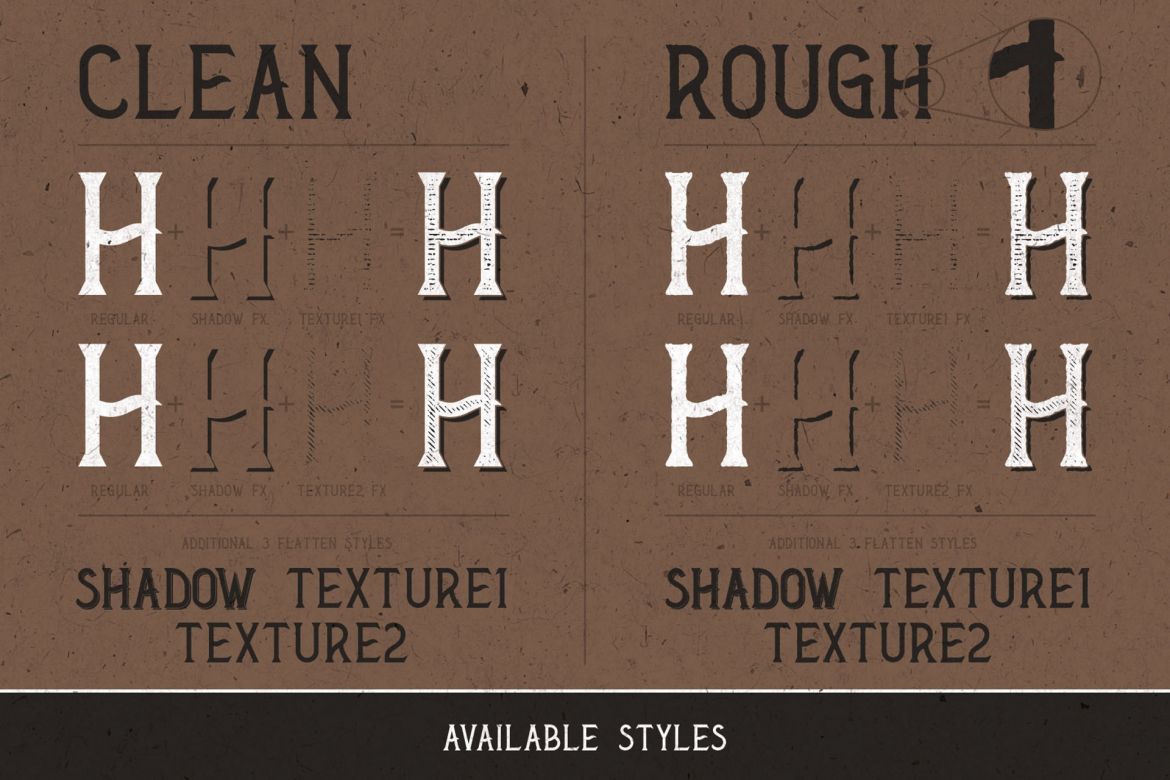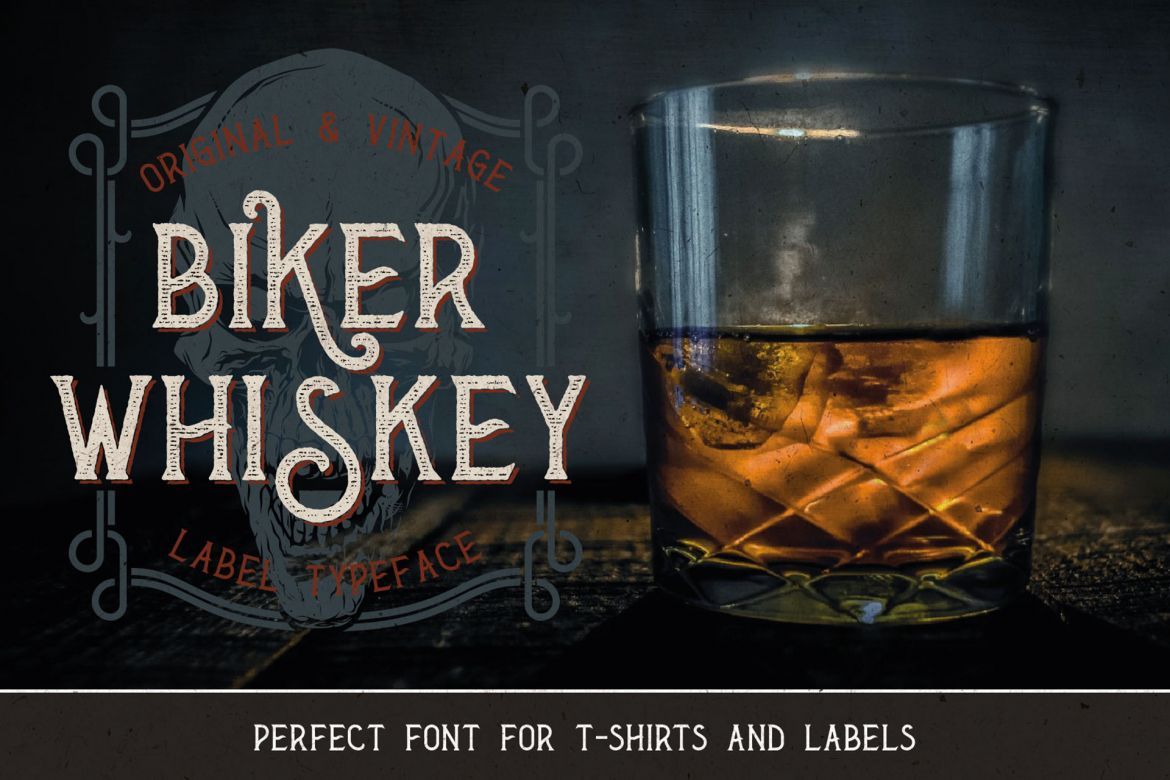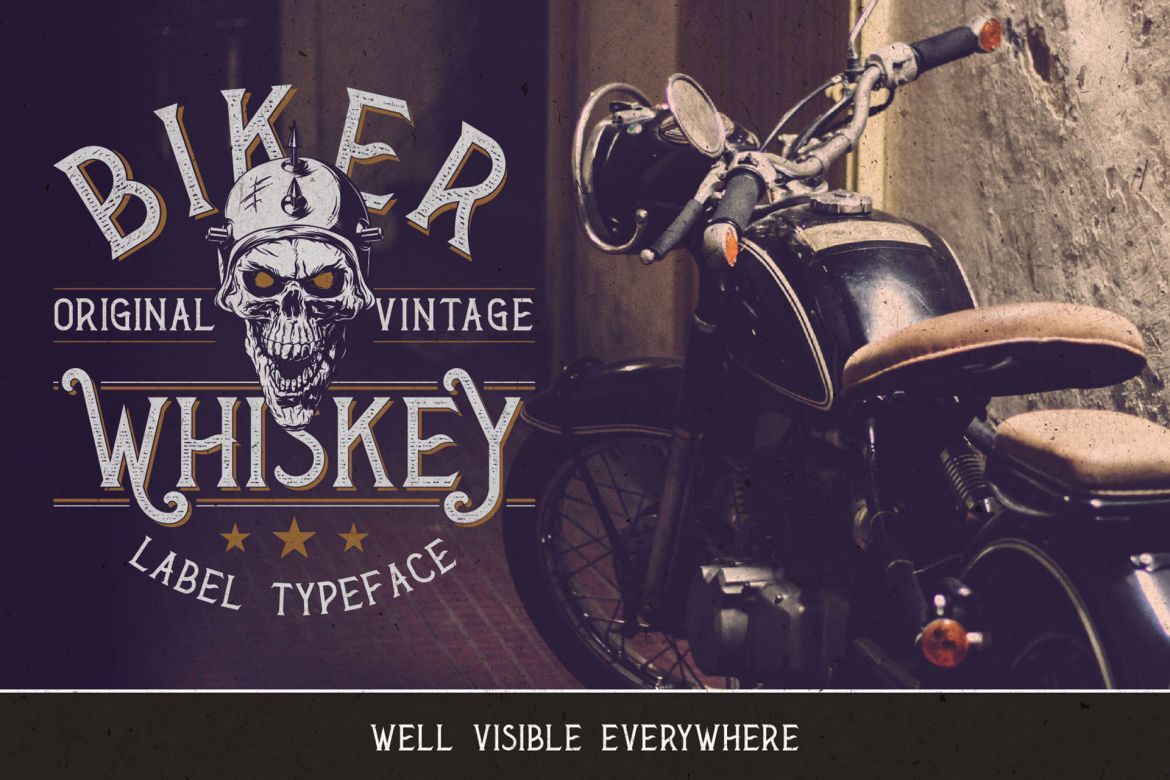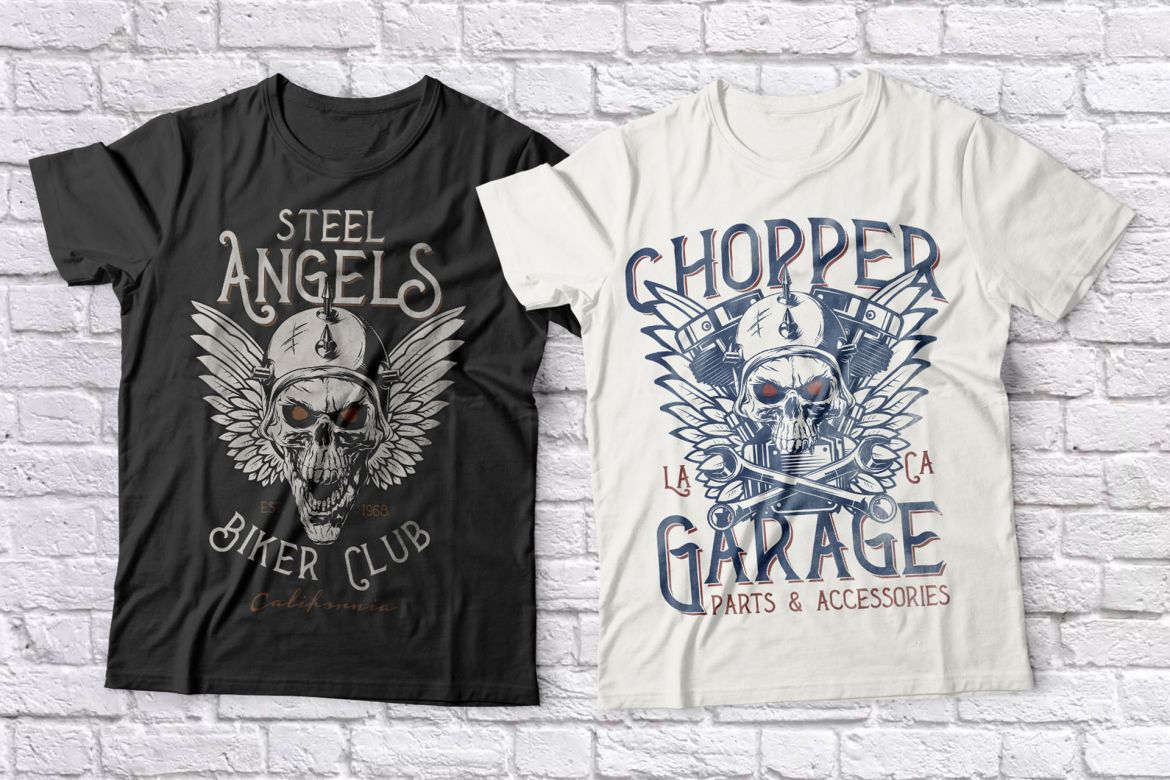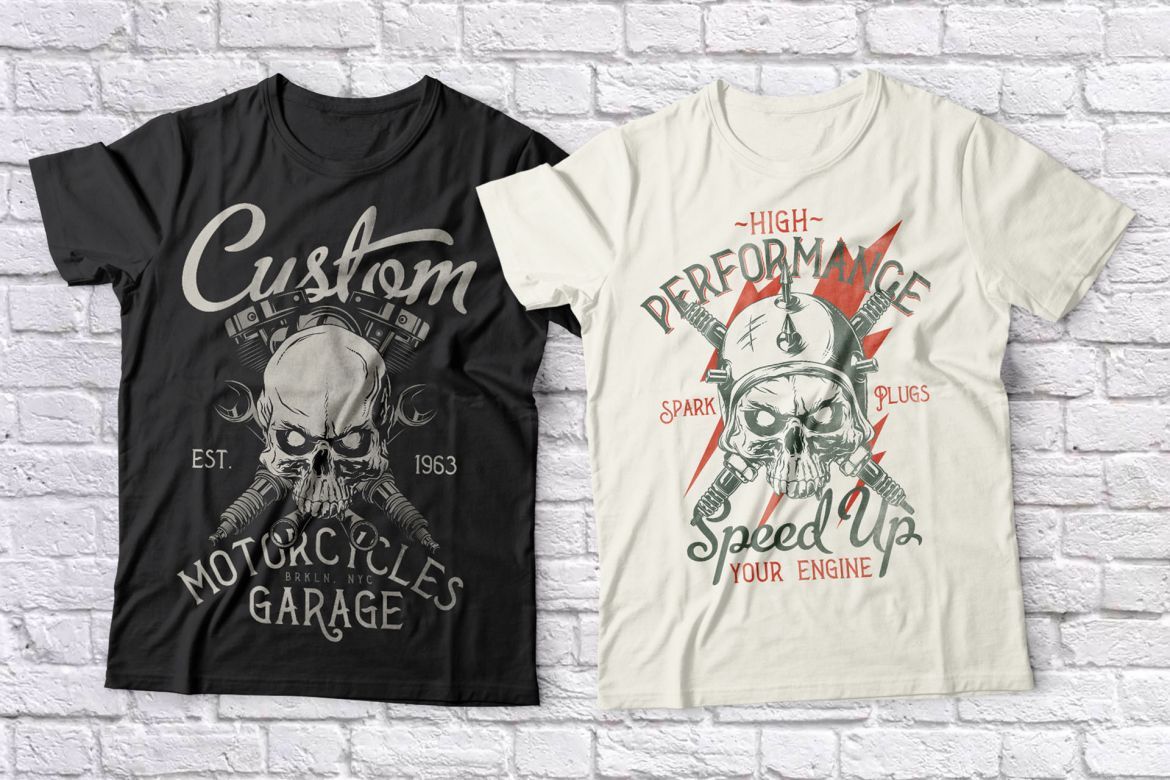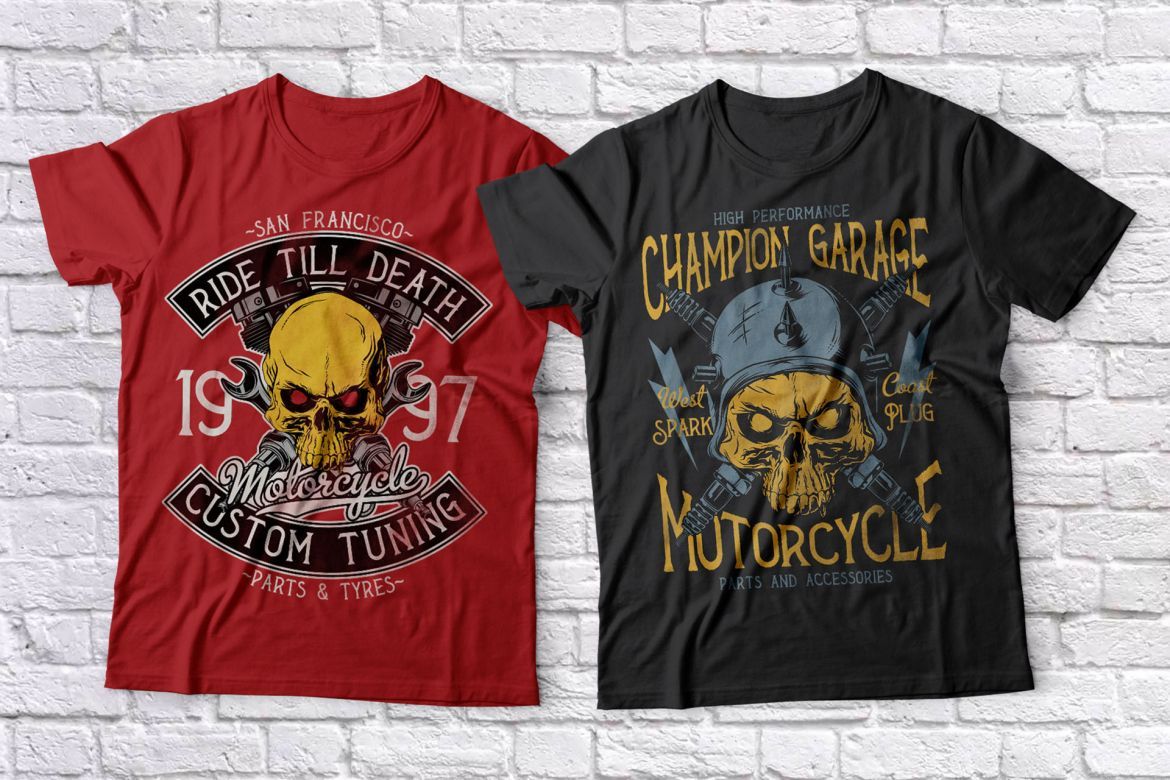
Biker Whiskey Layered Font
Introducing a vintage look label font named "Biker Whiskey". Typeface contains small letters, capital letters (several of them have alternates), numbers and punctuation characters. Biker Whiskey font have two styles - clean and rough. Each of styles have layered effects with texture and shadow, for preview look at 3rd screenshot. This font will good viewed on any retro design like poster, t-shirt, label, logo etc.